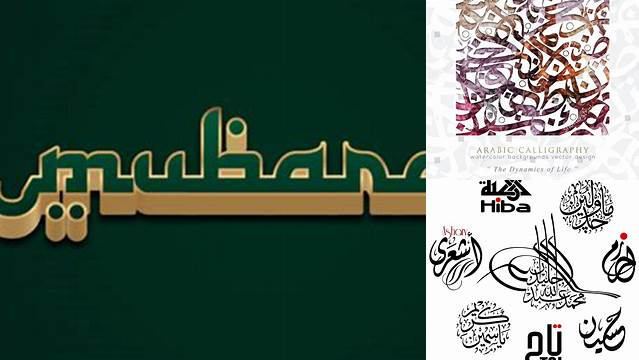
Arabic Fonts Generator: Create Stunning Text Designs
Hey guys! Ever wanted to spice up your Arabic text and make it pop? You're in luck! This guide is all about the Arabic Different Fonts Generator, your go-to tool for transforming ordinary Arabic script into eye-catching visuals. Whether you're a designer, a social media enthusiast, or just someone who loves the beauty of Arabic calligraphy, this is where you'll find everything you need. We'll dive deep into how these generators work, explore a variety of fonts, and give you tips on how to use them effectively. Let's get started and unlock a world of typographic possibilities!
H2: Understanding the Basics: What is an Arabic Fonts Generator?
So, what exactly is an Arabic Different Fonts Generator? Think of it as a digital magician that takes your plain Arabic text and dresses it up in various fonts. These tools are designed to convert standard Arabic characters into a wide array of styles, from elegant and traditional calligraphy to modern and playful designs. They're incredibly useful for a bunch of different purposes, including creating stunning visuals for social media, crafting professional documents, designing logos, and even personalizing your digital communications. These generators usually work by offering a user-friendly interface where you can input your text, select a font, and instantly preview the results. The best part? They're often incredibly easy to use, even if you don't have any prior design experience. The core function of an Arabic Different Fonts Generator revolves around the rendering of Arabic script. Due to the complex nature of Arabic characters, which have varying shapes depending on their position within a word, the generator must accurately identify and render the correct form of each letter. This process requires advanced algorithms and a database of diverse fonts to ensure proper display. The functionality of the generator often extends to the selection of font styles, sizes, and colors, allowing the user to customize the text appearance according to their aesthetic preference. Many generators also provide advanced features, such as the ability to apply effects, adjust spacing, and create intricate designs. The primary objective of the Arabic Different Fonts Generator is to provide users with a simple and efficient means of creating visually appealing Arabic text, and its capabilities contribute to effective communication and artistic expression. Users also appreciate the flexibility of using these generators, as they are often available online or as applications. This accessibility allows for easy application of various fonts across many platforms, including social media, websites, and print materials. This versatility further underscores the importance of the Arabic Different Fonts Generator as a valuable tool for anyone who wants to enhance the appearance of their Arabic text.
H3: Key Features to Look for in an Arabic Font Generator
When choosing an Arabic Different Fonts Generator, it's important to look for specific features that will enhance your experience. First and foremost, you want a wide selection of fonts. The best generators will offer a diverse library, including traditional calligraphic styles like Naskh and Thuluth, along with modern and creative options. This variety ensures you can find the perfect font for any project. Another critical feature is the user interface. A well-designed generator should be intuitive and easy to navigate, even for beginners. Look for a clean layout with clear instructions and a real-time preview of your text as you make changes. Customization options are also key. The ability to adjust font size, color, spacing, and even add effects can significantly enhance the visual appeal of your text. Some generators also allow you to customize the alignment and direction of the text, giving you even more creative control. Finally, compatibility is crucial. Make sure the generator supports a variety of output formats, such as PNG, JPEG, and SVG, so you can use your creations on different platforms and in different projects. The generators also offer additional functionalities, such as the ability to save your projects and download your generated texts in various formats. This saves time and facilitates collaboration. In addition, advanced users can explore the possibilities of fine-tuning the spacing between letters and words for optimal visual harmony. The focus is to enhance visual appeal. Features can include options for creating outlines, shadows, and other effects. The ideal Arabic Different Fonts Generator should provide a balance of extensive font choices, easy-to-use interface, and versatility in customization options.
H2: Exploring Popular Arabic Font Styles
Let's explore some of the most popular Arabic font styles that you'll likely encounter when using an Arabic Different Fonts Generator. First up, we have Naskh, a classic and widely used style known for its clarity and readability. It's commonly used in religious texts, official documents, and educational materials. Thuluth is another elegant and decorative style, often used for titles, headings, and artistic pieces. It's characterized by its flowing curves and complex letterforms. Ruq'ah is a more informal and handwriting-like style, perfect for casual communications and personal notes. It's known for its simplicity and ease of use. Kufi is a geometric and angular style, commonly used for architectural inscriptions and decorative purposes. It exudes a sense of strength and formality. Another popular style is Diwani, known for its flowing and ornate appearance, often used for official documents and artistic designs. The best Arabic Different Fonts Generator will include all of these and many more, so you're able to select the style that best fits your needs. Consider also modern Arabic fonts such as Cairo, Dubai, and Lateef, which offer a contemporary look, suitable for digital designs and branding. These modern fonts often incorporate design elements that are more aligned with the visual trends of the present day, making them perfect for a variety of creative projects. The wide selection of these fonts caters to a diverse set of creative needs.
H3: The Beauty of Arabic Calligraphy Fonts
Arabic Calligraphy Fonts hold a special place in the world of typography. They represent the artistic expression of Arabic script. The most common calligraphy styles are Thuluth and Naskh, known for their flowing lines and elegance. Calligraphy fonts are used for titles, headings, and artistic pieces. These fonts give a sense of culture and sophistication. Another popular calligraphy style is Diwani, often used for official documents and artistic designs due to its ornate appearance. The distinct characteristics of each style provides a unique visual experience. Kufi is a geometric and angular calligraphy style, is often used for architectural inscriptions and decorative purposes, giving a sense of strength and formality. The ability to generate calligraphic fonts is a key feature. A good Arabic Different Fonts Generator will allow you to preview your text in multiple calligraphic styles. This helps you find the perfect font for your project. With a diverse collection of calligraphy fonts, it is easy to create sophisticated and visually appealing Arabic text. Calligraphy fonts are used for a wide range of purposes, from creating social media graphics to designing professional documents. Understanding the characteristics of each style will allow you to create visually engaging text, whether for personal use or for professional purposes. The use of Arabic Calligraphy Fonts enhances the overall aesthetic value of written Arabic.
H2: How to Use an Arabic Fonts Generator: A Step-by-Step Guide
Using an Arabic Different Fonts Generator is a piece of cake, even if you've never done it before! Here's a step-by-step guide to get you started. First, find a generator online or download an app. Many are free and easy to access. Next, input your Arabic text into the text box provided. You can simply copy and paste it from another source or type it directly into the generator. After that, select your desired font. The generator will typically display a list of available fonts. Just scroll through them and click on the one you like. You should see your text automatically update in the new font. Customize the text. Most generators allow you to adjust the font size, color, and spacing. This step allows you to fine-tune the appearance of your text until it looks perfect. Some tools also offer additional features, like the ability to add effects or choose a background. When you are happy with the design, you can save or download your creation. The most common formats are PNG, JPEG, and SVG. Choose the format that best suits your needs and save the file to your device. Now, you can use your creatively designed Arabic text wherever you want! Whether it's for social media, a document, or a design project, the possibilities are endless. Enjoy expressing yourself with the diverse range of fonts available. Many websites also include tutorials to help users optimize their workflow. A basic Arabic Different Fonts Generator should be easy to navigate, with clear instructions. Many online generators also support real-time previews. This allows you to see your changes instantly, making the design process more efficient.
H3: Tips and Tricks for Effective Use
Want to get the most out of your Arabic Different Fonts Generator? Here are some pro tips to take your designs to the next level. First, experiment with different font combinations. Don't be afraid to mix and match fonts to create unique and eye-catching designs. Try pairing a bold font with a more delicate one, or using different fonts for titles and body text. Pay attention to readability. While it's fun to use fancy fonts, make sure your text is still easy to read, especially for longer pieces of text. Avoid using overly elaborate fonts for large blocks of text, as it can be difficult for the reader to understand. Consider the context. Think about where you'll be using your text and choose a font that fits the overall tone and style of your project. For example, a formal document would call for a more traditional font, while a social media post might benefit from a more modern and playful style. Play around with colors and effects. Most generators allow you to customize the color of your text and add effects like shadows or outlines. Don't be afraid to experiment with these features to add visual interest to your designs. Always preview your work. Before finalizing your design, take a moment to preview it on different backgrounds and devices to make sure it looks good everywhere. Save your work. Be sure to save your designs in a format that is compatible with your intended use. Knowing these simple tips, it will allow you to maximize the effectiveness of the Arabic Different Fonts Generator to your creative endeavors. When implementing these tips, it can lead to more aesthetically pleasing and effective visual communication.
H2: Top Arabic Fonts Generators to Try
Ready to explore some of the best Arabic Different Fonts Generators out there? Here are a few popular options you should check out. First, there's OnlineFonts.com, which offers a wide variety of Arabic fonts and a user-friendly interface for easy text generation. It is user-friendly and can be used for both simple and advanced design tasks. Another great option is ArabicFont.net, known for its extensive library of fonts and the ability to customize various aspects of your text. This website supports a wide variety of styles. For mobile users, consider exploring font generators available as apps on your smartphone. These apps provide the convenience of generating fonts on the go. In addition to this, research generators that provide advanced features such as text effects, shadow, or background options. FontGen.com has a wide variety of modern and traditional Arabic fonts, which are suitable for a wide range of projects. Some of the tools offer additional features, such as the ability to convert text into image files in several formats. They typically offer a preview of the text in real-time. You may want to explore generators specifically designed for social media. This makes it easier to create visually appealing posts. The Arabic Different Fonts Generator market is always evolving, which means new options are continually being developed. The user must continually research new options that come on the market. Each of these generators provides users with versatile, visually appealing outputs.
H3: Comparing Free vs. Paid Arabic Font Generators
When you're looking at Arabic Different Fonts Generators, you'll come across both free and paid options. The choice depends on your specific needs and budget. Free generators are a great starting point. They offer basic functionalities, such as a selection of font styles, customization of text, and the ability to generate text for various purposes. These generators are accessible to users of any skill level. Many free generators have a good variety of fonts. The downside is that they often have limited features. The selection of fonts may be restricted, and customization options could be limited. Some free generators may have ads. Paid generators provide more advanced features, such as a wider selection of fonts, more customization options, and the ability to download fonts in high-resolution formats. They may also offer advanced design tools, such as the ability to create logos or other graphic elements. Paid generators often have a higher-quality output and offer the support and reliability that free tools may not provide. Before committing to a paid generator, try a free version to check its effectiveness. Some paid services offer trial periods, allowing you to experience their features before committing to a subscription. Consider what is more important to you: ease of access and cost, or more advanced features. The selection of a Arabic Different Fonts Generator should be made considering your budget and the specific features that you require for your design projects.
H3: Recommended Websites and Tools for Arabic Typography
Ready to dive deeper into the world of Arabic Different Fonts Generators and Arabic typography? Here are some recommended websites and tools to expand your knowledge. Explore the online font foundries. They offer a wide selection of Arabic fonts. This can help you with your designs. Behance and Dribbble are online platforms that showcase design projects. This enables you to find inspiration and discover new fonts. You can explore design blogs, such as Smashing Magazine and Creative Bloq. They feature articles and tutorials on typography and graphic design. You can access online communities such as Reddit and CreativeCow. These communities give you access to support. Online courses, such as those on Udemy and Skillshare, offer in-depth training in typography. You can also explore design software such as Adobe Illustrator and Photoshop. These tools give you advanced design capabilities. By using these tools, you'll be able to increase your efficiency while generating Arabic fonts through an Arabic Different Fonts Generator.